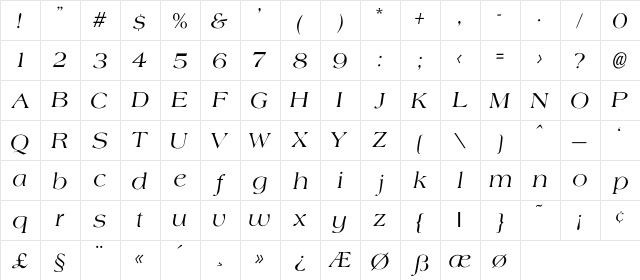
Agate-Normal-Italic Regular Font Preview
Agate-Normal-Italic Regular
Design Context for Agate-Normal-Italic Typeface
Agate-Normal-Italic is a composed and adaptable typeface that performs quietly and consistently across a wide range of design contexts. The slanted form adds forward momentum and visual energy.
Pro Tip: Try Agate-Normal-Italic for annotation and caption copy alongside an upright companion — the contrast in angle creates a dynamic but ordered typographic system.